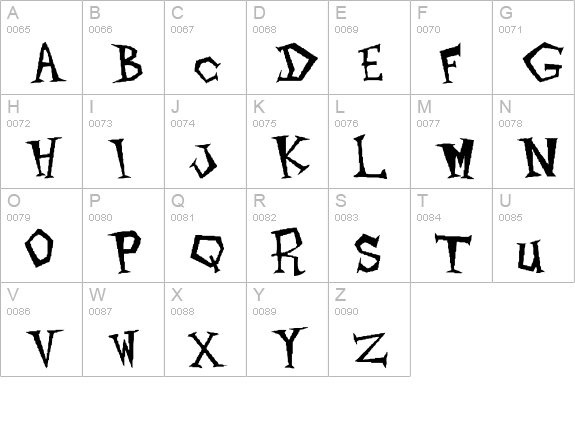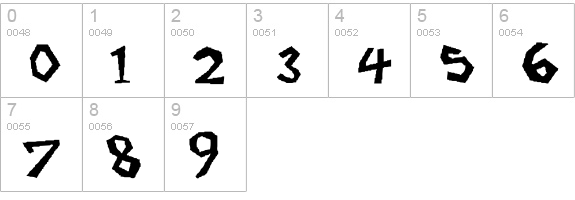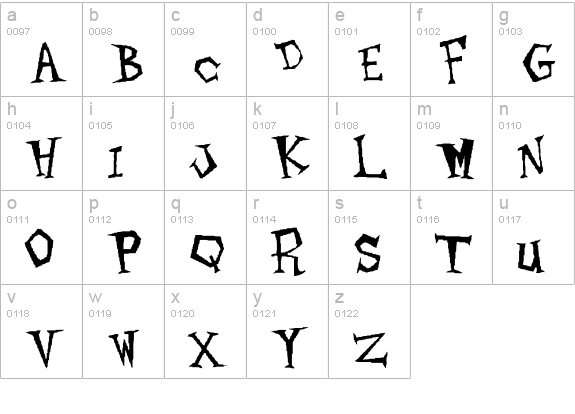
Metalheads Font Details
The Metalheads font is a bold and edgy typeface that perfectly captures the raw energy and attitude of the heavy metal music scene. Its sharp angles and thick strokes exude a sense of power and intensity, making it ideal for creating eye-catching designs with a rebellious edge. This font is perfect for album covers, concert posters, and merchandise for metal bands and music festivals. Whether you're looking to create a striking logo or want to add a touch of metal-inspired flair to your designs, Metalheads is sure to make a statement. Best of all, Metalheads font is available for free download at FontsMarket.com. This means you can unleash your creativity and incorporate this powerful typeface into your projects without breaking the bank. Download Metalheads today and let your designs rock out with this free and fierce font!